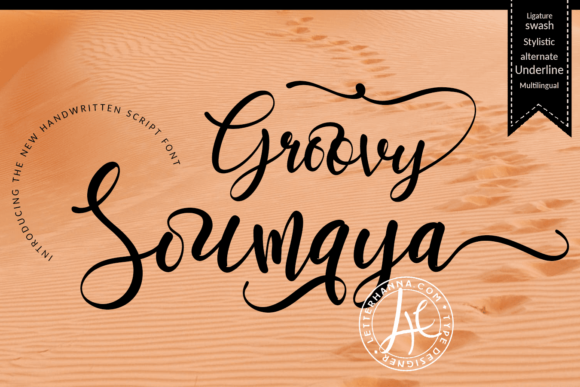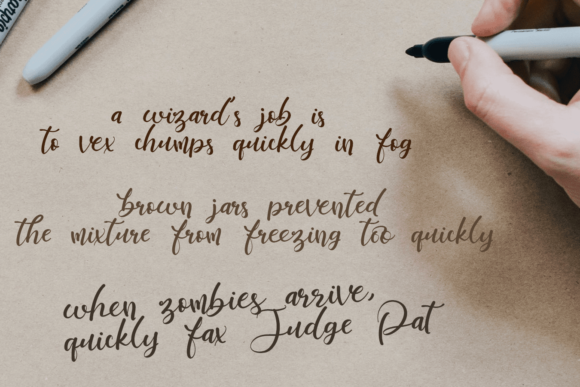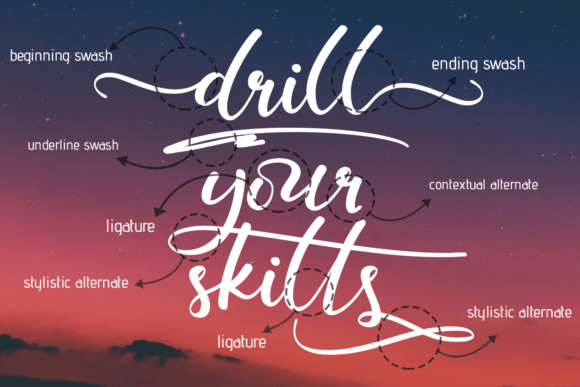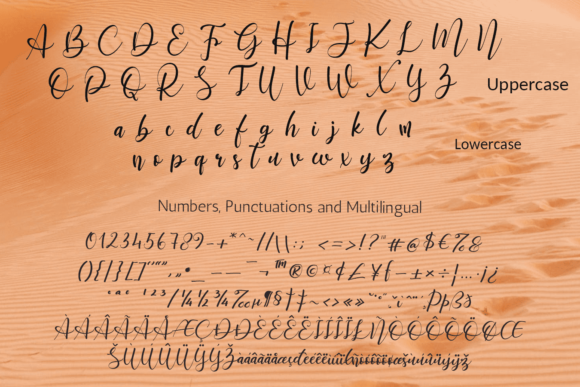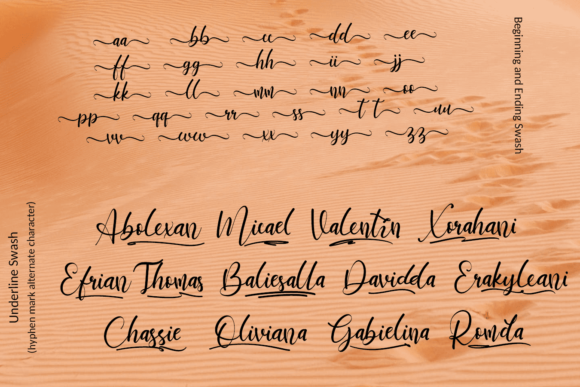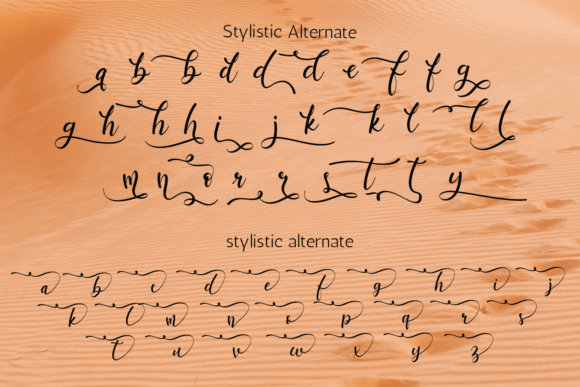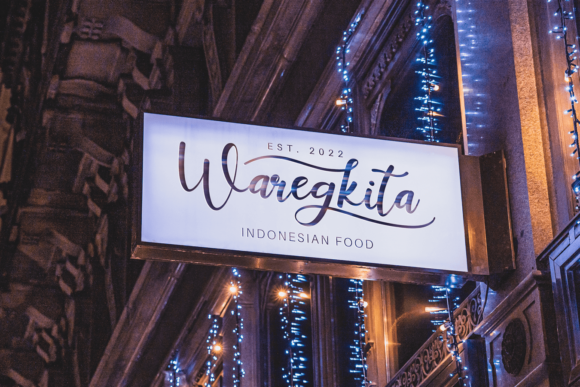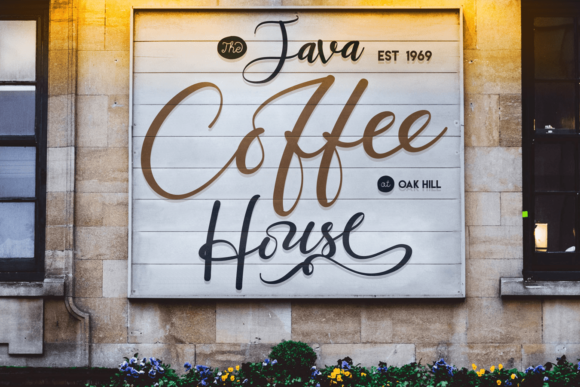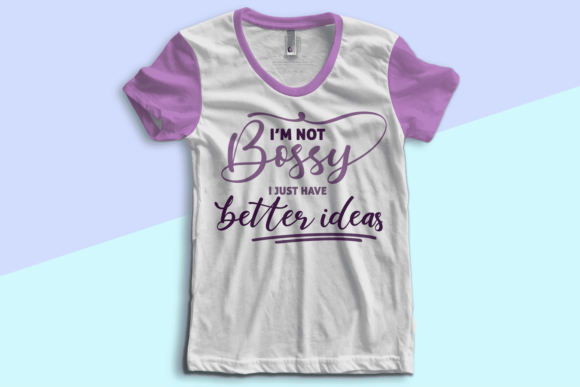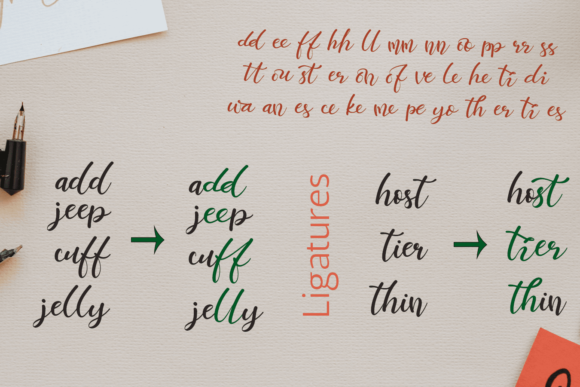
Groovy Soumaya Font
About Groovy Soumaya Font
Groovy Soumaya Font is more than just a typeface; it’s a captivating work of art that brings beauty and fluidity to any project it graces. With its intricate handwritten style and flowing strokes, this font adds a touch of elegance and charm to every design endeavor.
Whether you’re creating stunning wall displays, crafting enchanting wedding invitations, designing eye-catching social media post logos, or developing captivating advertisements, Groovy Soumaya Font ensures that your typography stands out with its unique personality and allure.
Elevate your product packaging to new heights of sophistication, infuse your product designs with an irresistible charm, and create unforgettable labels that leave a lasting impression on your audience. Groovy Soumaya Font is the perfect choice for photographers looking to enhance their images with elegant watermarks, adding a touch of professionalism and style to their work.
From elegant invitations to stylish stationery, Groovy Soumaya Font is versatile enough to adapt to any project that requires impressive typography. Its seamless integration into your workflow is facilitated by its PUA encoding, allowing you to access a vast array of stunning glyphs and ligatures with ease.
Whether you’re a seasoned designer or just starting out, Groovy Soumaya Font empowers you to unleash your creativity without limitations. Its timeless elegance and effortless charm make it a must-have tool for any design toolkit.
Indulge your creative instincts and explore the endless possibilities that Groovy Soumaya Font has to offer. With its ability to transform ordinary projects into extraordinary works of art, this font is sure to become an essential asset in your design arsenal.
Experience the beauty and versatility of Groovy Soumaya Font for yourself and discover why it’s the preferred choice for designers who demand nothing but the best. Let its flowing curves and graceful strokes breathe life into your designs and elevate them to new heights of excellence.
Incorporate Groovy Soumaya Font into your next project and watch as it adds a touch of magic and sophistication that sets your work apart from the rest. With its unparalleled beauty and versatility, this font is sure to leave a lasting impression on your audience and make your designs truly unforgettable.